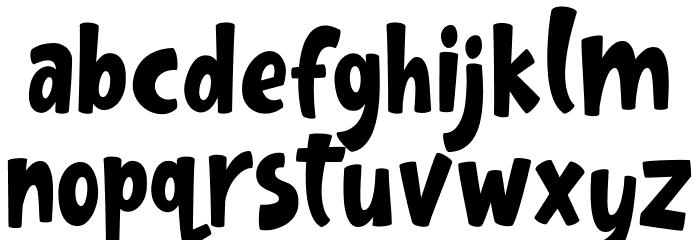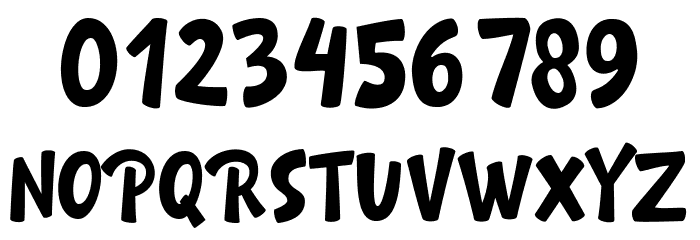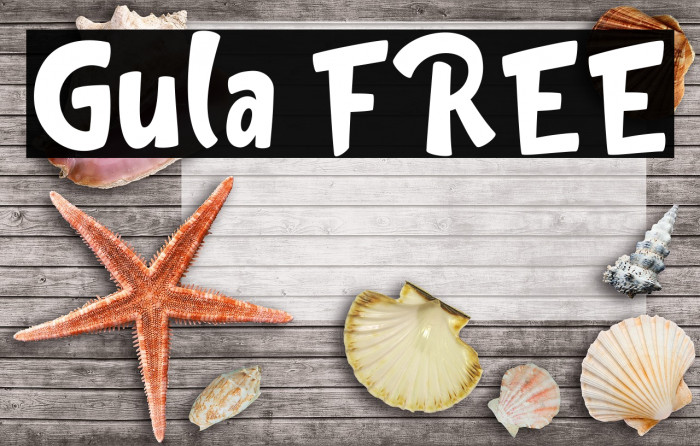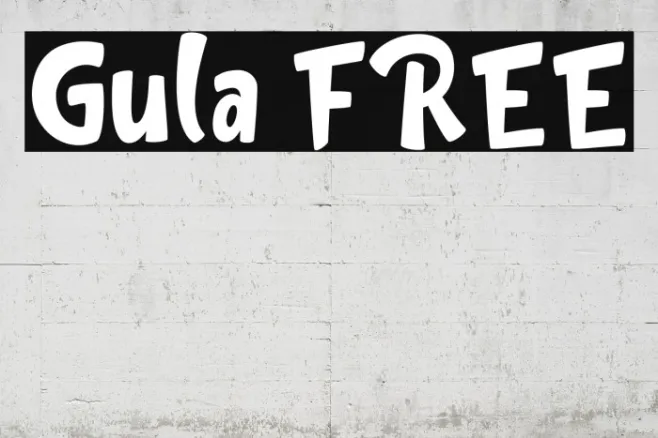
Gula FREE Font
This font features a playful and bold style with rounded edges and a slightly irregular form, giving it a hand-drawn appearance. The letters are thick and substantial, with a whimsical touch that makes them stand out. The uppercase and lowercase letters maintain a consistent weight, while the numbers and special characters follow the same playful design. This font's unique character is perfect for projects that require a fun and engaging look.
A playful, bold font with rounded, hand-drawn characters.
- Proposed Projects: Ideal for children's books, playful branding, posters, and creative invitations.
- Overall Style: Playful